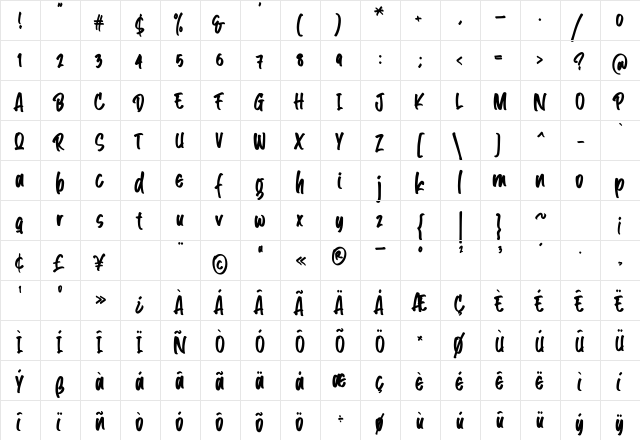
Angle Janks Regular
| Designer | Colllab Studio Team |
Design Context for Angle Janks Typeface
Angle Janks is a composed and adaptable typeface that performs quietly and consistently across a wide range of design contexts.